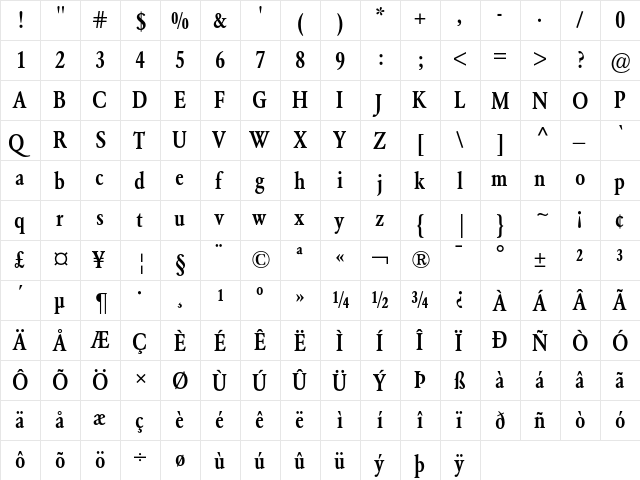
Garamond BE Medium Condensed Font Preview
Garamond BE Medium Condensed
Design Context for Garamond BE Typeface
Garamond BE takes a measured approach to typography — its balanced proportions and neutral character make it a reliable workhorse for both digital and print work. Its narrow stance lets it pack a punch even in space-constrained designs.